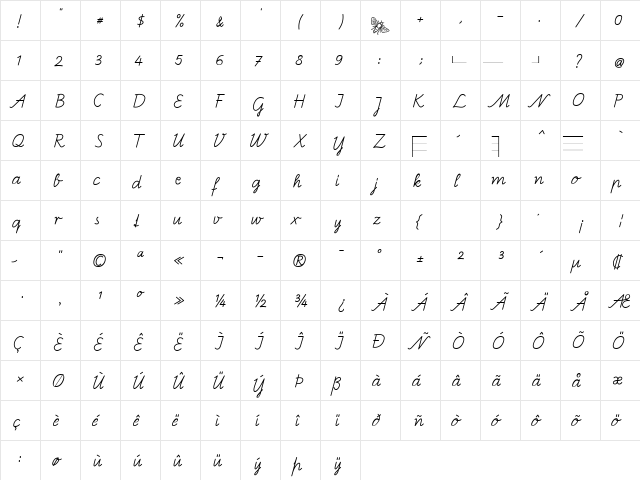
Bienchen SAS Italic
| Foundry | Peter Wiegel |
| Designer | Peter Wiegel |
Design Context for Bienchen SAS Typeface
Bienchen SAS is a composed and adaptable typeface that performs quietly and consistently across a wide range of design contexts. The slanted form adds forward momentum and visual energy.